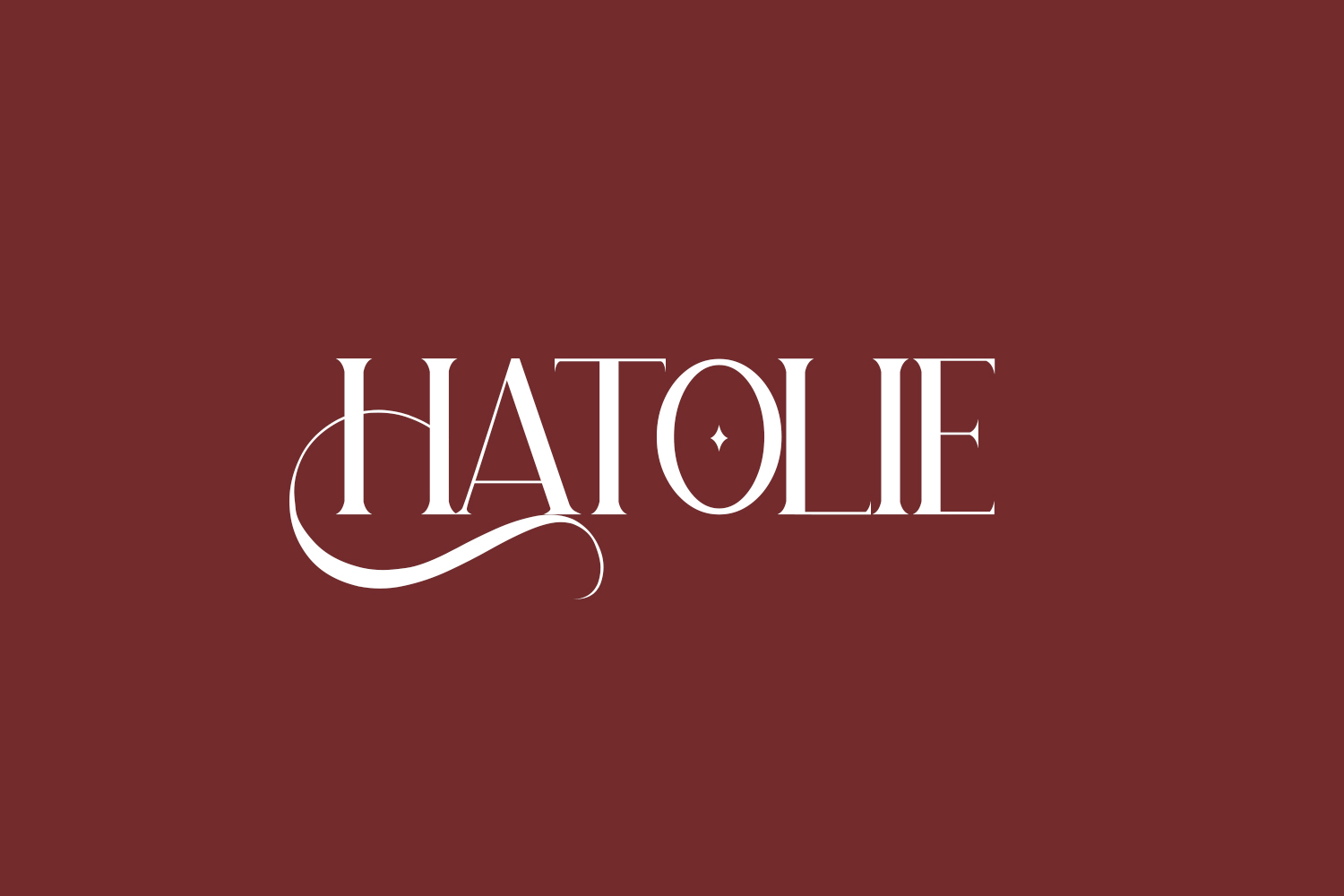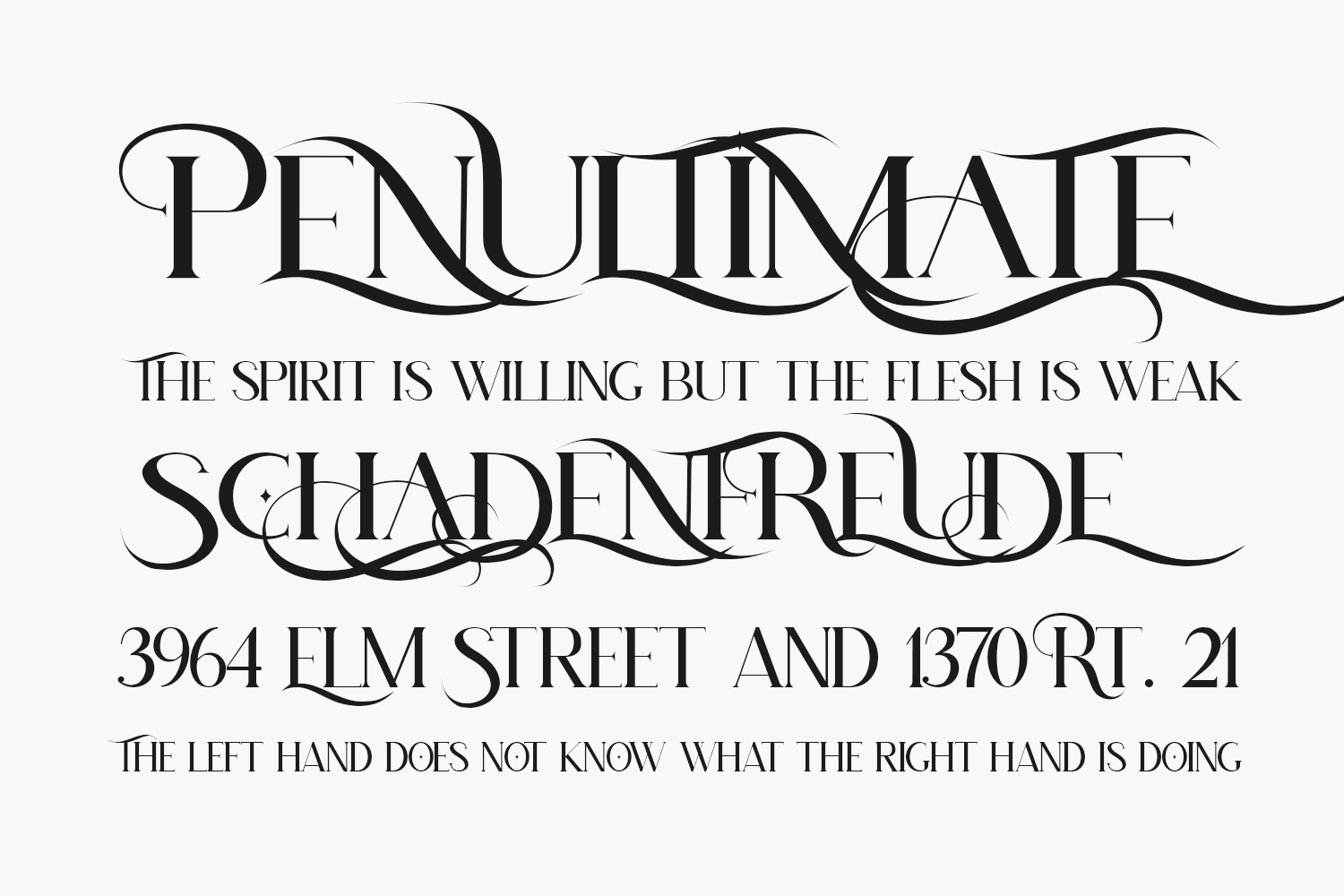
Hatolie Free Font is an elegant and luxuries typeface also suitable for logo, greeting cards, quotes, posters, branding, name card, stationary, design title, blog header, art quote, typography, art, modern envelope lettering or book design, happening style like the hand-drawn design or watercolor design theme, craft design, any DIY project, book title, or any purpose to make your art/design project look pretty and trendy. Please purchase the full version for commercial use.
Designed by Gilar Studio